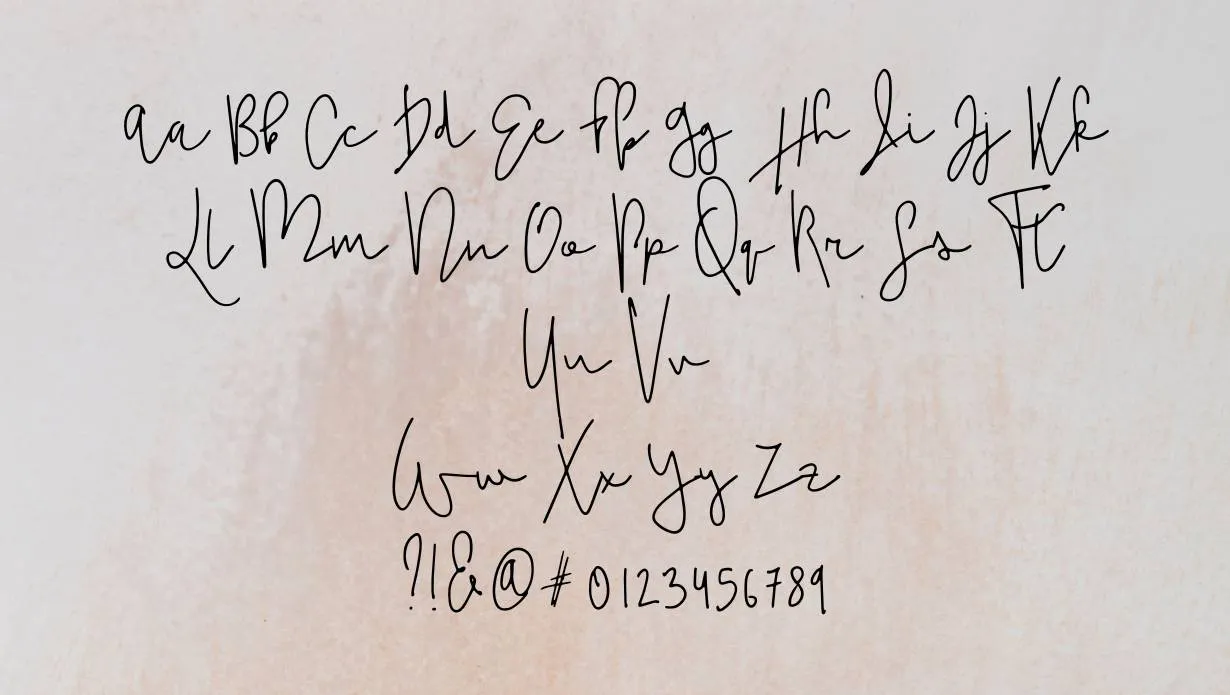
Hello Neighbor Font adds a welcoming and friendly charm to your projects. Featuring soft curves and a laid-back style, this font is ideal for establishing a cozy and welcoming vibe. It’s great for greeting cards, personal notes, or any project that you want to infuse with warmth and approachability.
The font’s moderate weight and medium width make it easy to read and suitable for various applications. Technically, Hello Neighbor Font is crafted with smooth and rounded design elements, ensuring a consistent and friendly appearance that adds a personal touch to your projects.